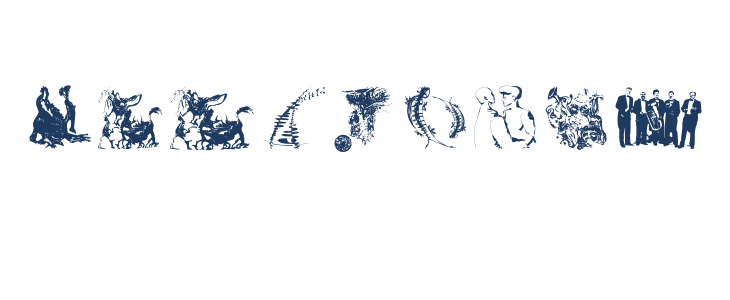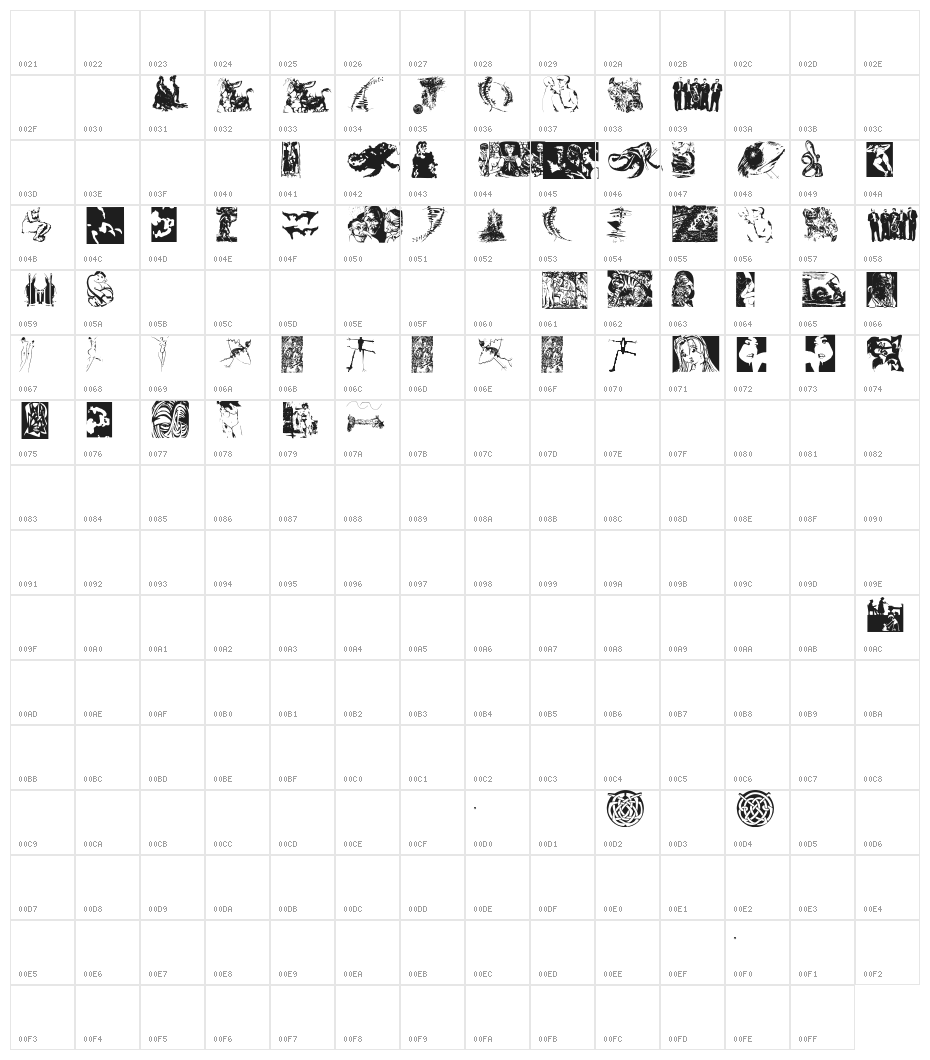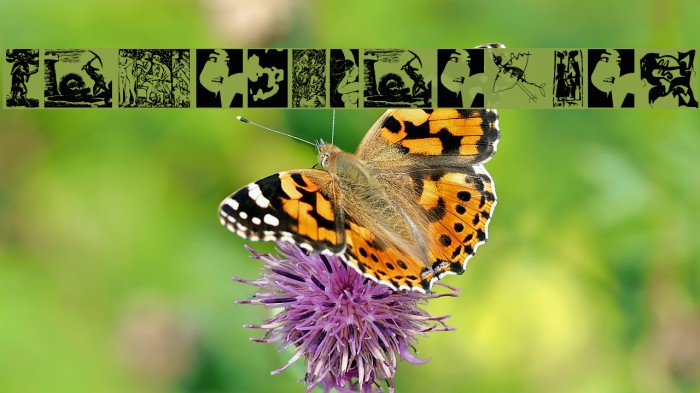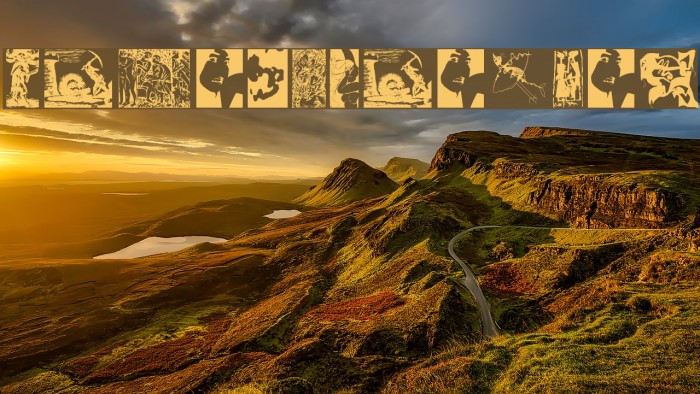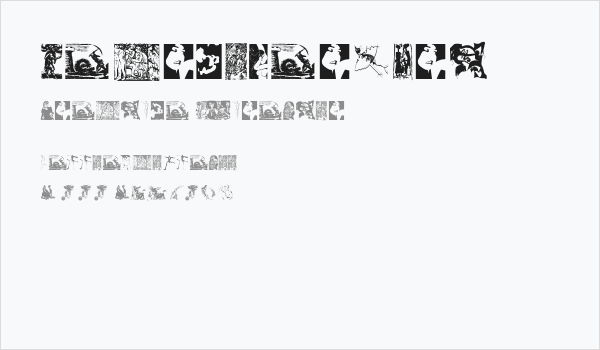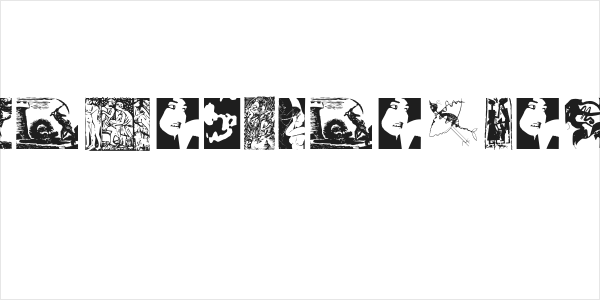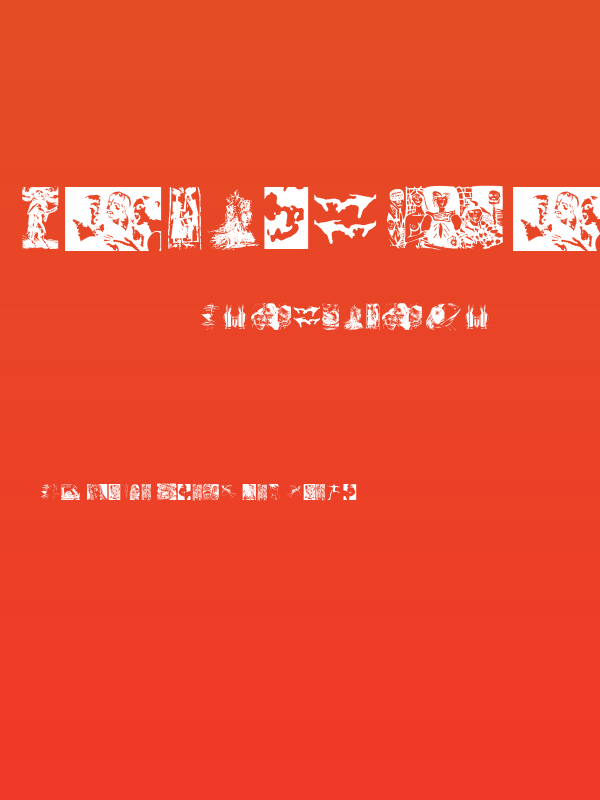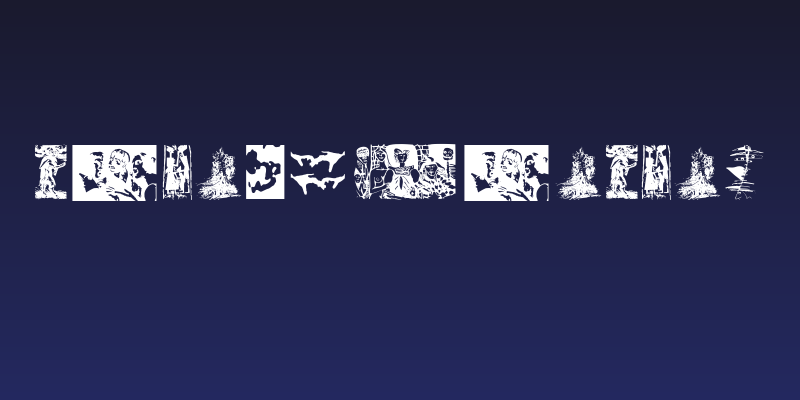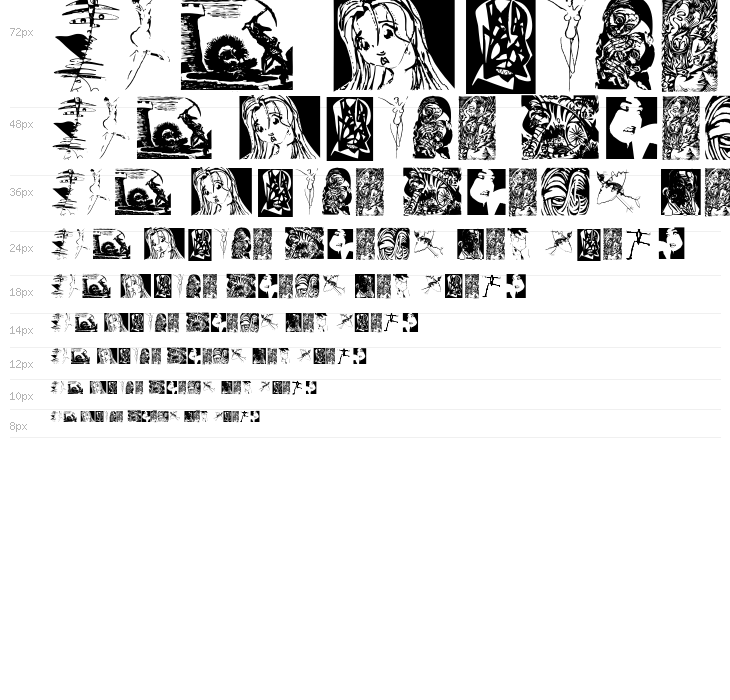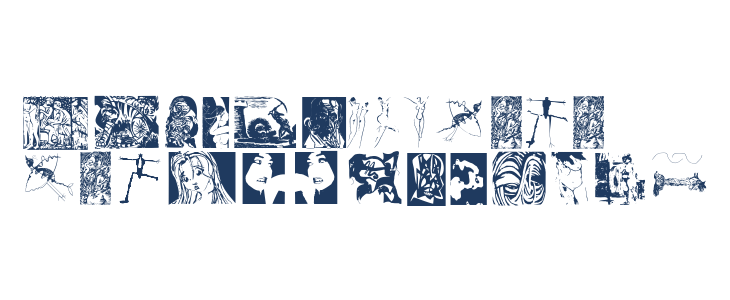
NearModernArt Font
NearModernArt Description
A highly decorative and illustrative font where each character is represented by a unique, detailed black-and-white modern art drawing, often abstract or figurative, with varying levels of complexity and density.
| Overall Style | Decorative, Modern, Artistic |
| Use Case | Headlines, Logos, Posters, Artistic projects |
| Proposed Projects | Art posters, gallery invitations, creative branding, album covers, book covers, event promotions. |